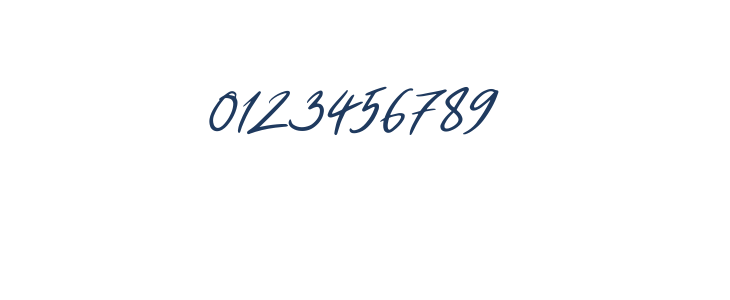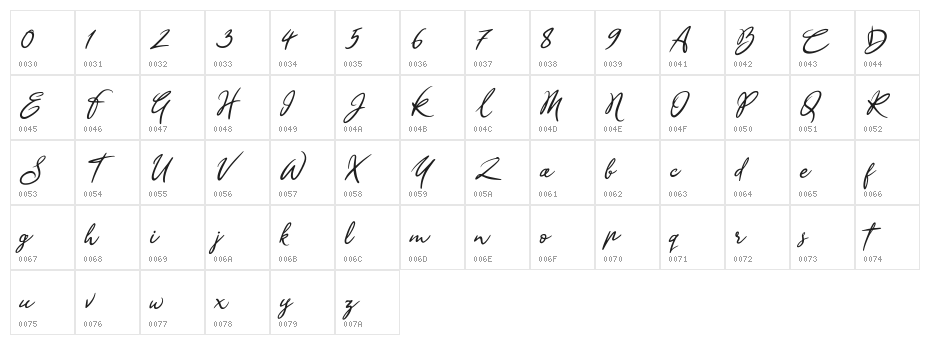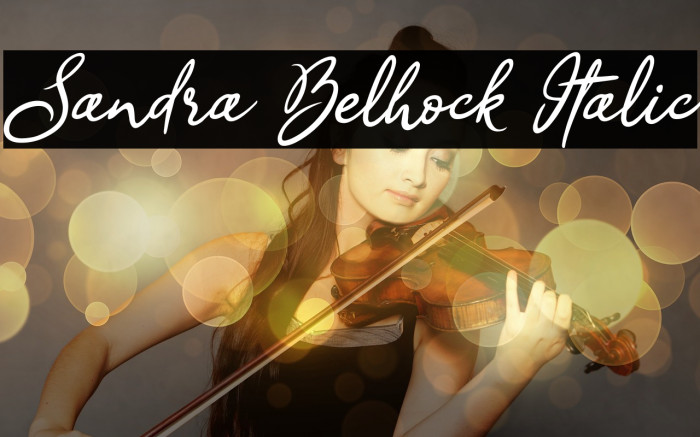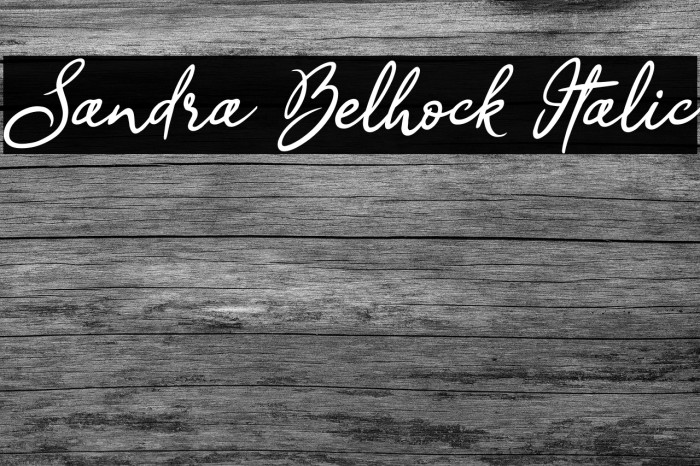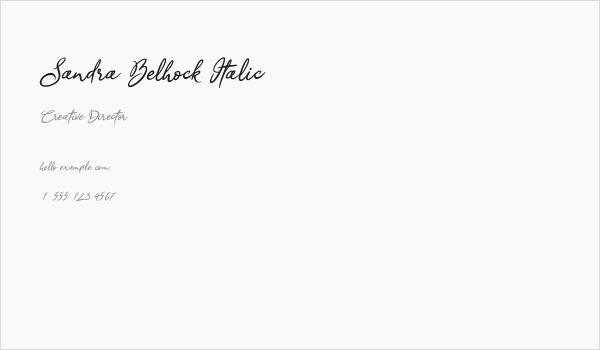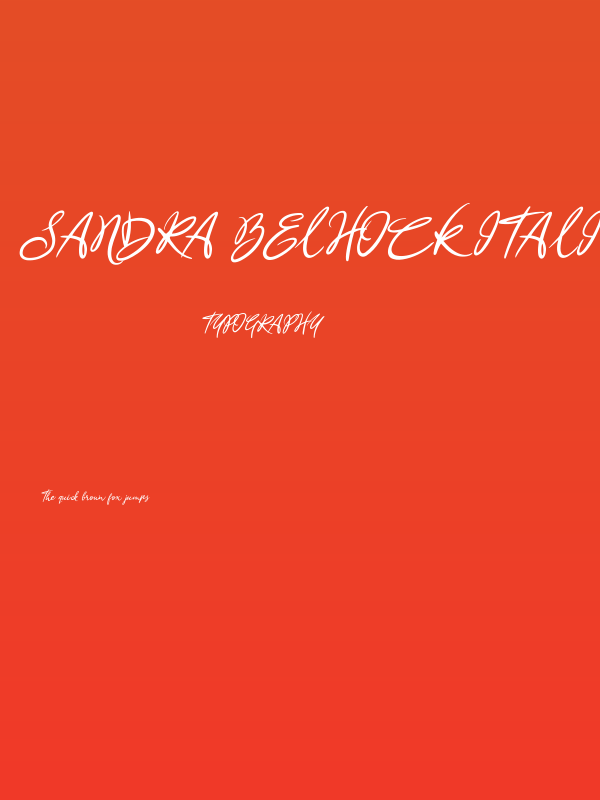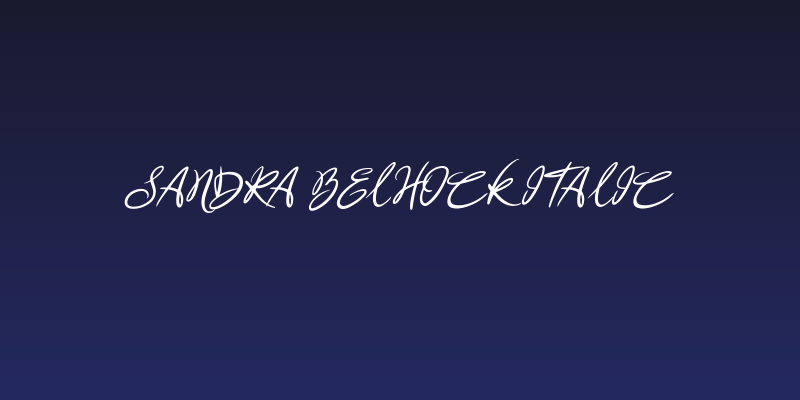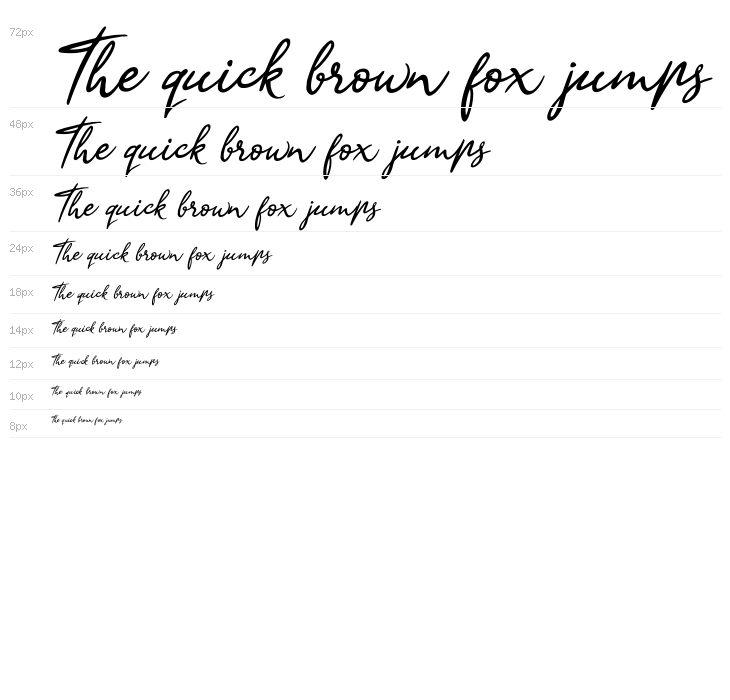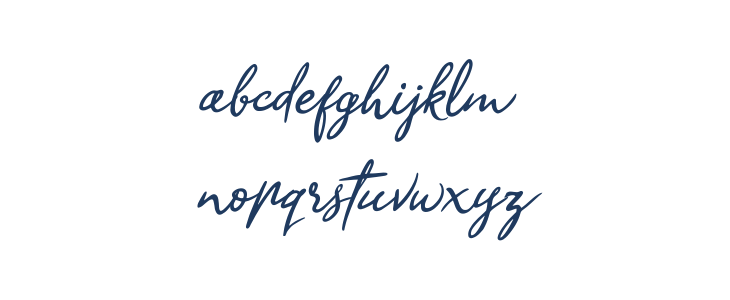
Sandra Belhock Italic Font
Sandra Belhock Italic Description
This font features a dynamic and flowing script style, characterized by its elegant and cursive letterforms. The strokes are smooth and connected, giving it a handwritten appearance that is both stylish and sophisticated. The uppercase letters are bold and prominent, while the lowercase letters maintain a consistent flow, enhancing readability. The numerals are distinct and blend seamlessly with the overall design, making it versatile for various applications. Special characters are crafted with the same attention to detail, ensuring a cohesive look across all text elements.